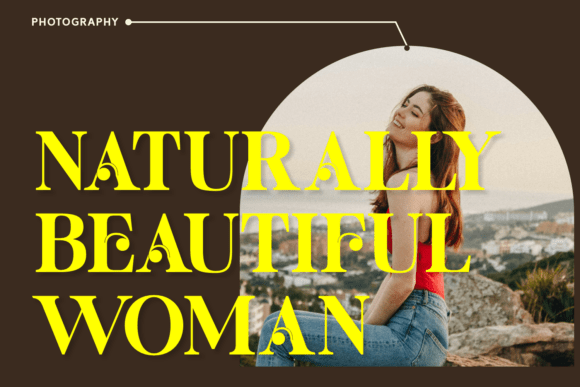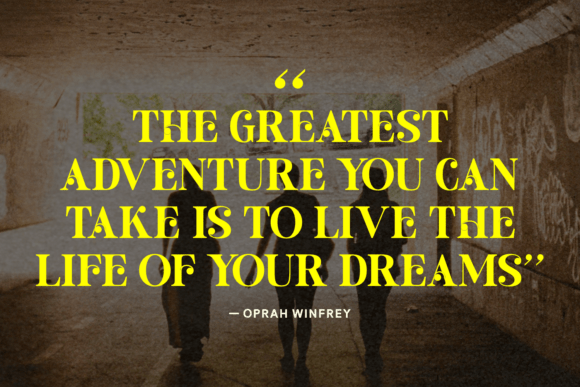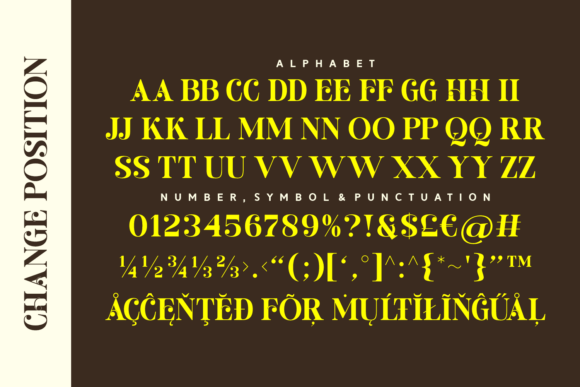
Introduction to Change Position Font
Have you ever stared at a blank design canvas, struggling to find the perfect font to bring your creative vision to life? We’ve all been there. But what if I told you that the solution lies in a single, bold, and eye-catching modern serif font that exudes luxury and confidence?
Meet the Change Position Font, a game-changing design resource that’s about to revolutionize your creative projects. With its elegant curves, dramatic terminals, and subtle flourishes, this typeface is the ultimate tool for designers seeking to make a lasting impact.
Key Features of Change Position Font
- High-quality font design: Our Change Position Font is carefully crafted to provide a unique and creative touch to your design project.
- Transparent background: The font features a transparent background, allowing for seamless integration with any design element or background image.
- High-resolution design: The font is designed at a high resolution, making it suitable for use in large-scale designs, such as billboards and posters.
- Perfect for creative projects: Our font is ideal for use in creative projects, such as graphic design, typography, and digital art.
Honest Review: Change Position Font
As a designer, I’m always on the lookout for high-quality design resources that can elevate my creative projects. Recently, I stumbled upon the Change Position Font, and I’m excited to share my honest review with you.
What works well: ✨ The font is incredibly versatile, and I love how easy it is to customize the text with a transparent background. This makes it perfect for overlays, social media graphics, and other design elements where you need a clear and crisp look.
- ✨ The font is highly customizable, allowing you to adjust the text size, color, and even add shadows or effects.
- ✨ The font is available in a range of styles and weights, giving you plenty of options to choose from.
Overall impression: I’m really impressed with the Change Position Font, and I think it’s a valuable addition to any designer’s toolkit. The high-quality design and transparent background make it perfect for a wide range of creative projects.
Experiment with different font positions to create unique and creative effects. Use the Change Position Font feature to add visual interest to your designs and enhance the overall aesthetic.
The Change Position Font feature is commonly used in logo design, typography, and graphic design. It’s also useful for creating social media graphics, presentations, and marketing materials.